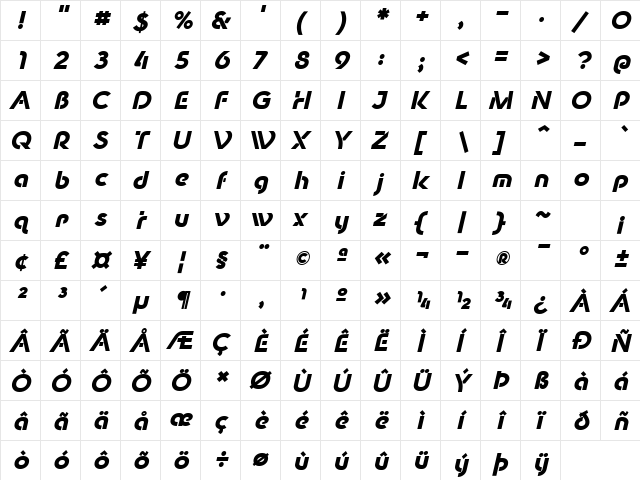
New Shape Bold Oblique
Design Context for New Shape Typeface
New Shape is a composed and adaptable typeface that performs quietly and consistently across a wide range of design contexts. The slanted form adds forward momentum and visual energy. The heavy weight commands attention and anchors typographic hierarchies.
Pro Tip: Use New Shape for emphasis, pull quotes, and subheadings where its slanted energy can add rhythm to the layout.